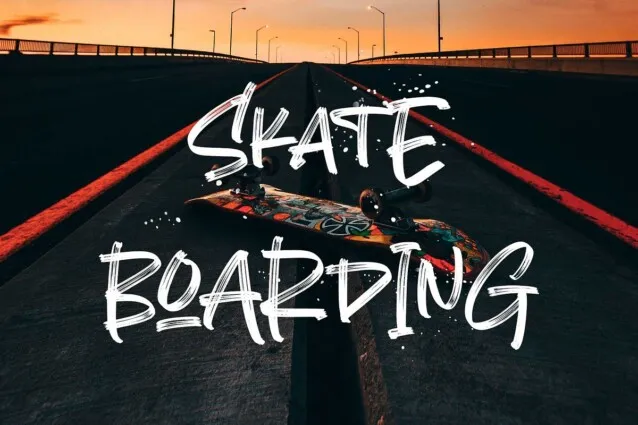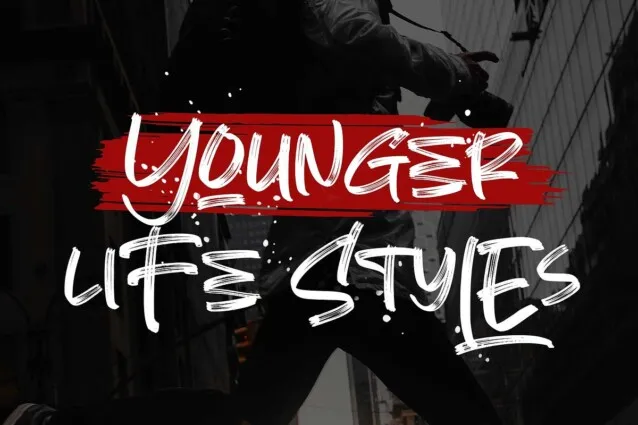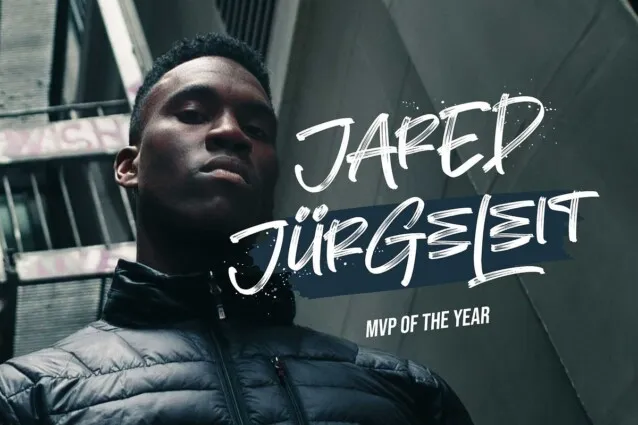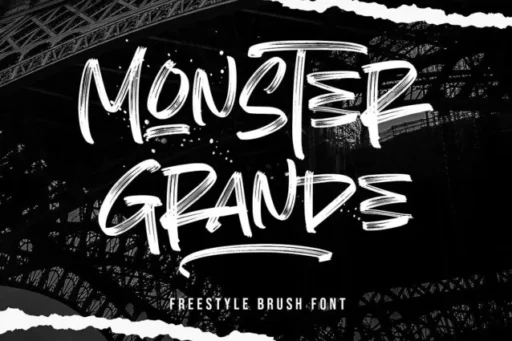
Monster Grande Font
Monster Grande looks like it was drawn by hand and has a dry marker feel. The Arterfak Project made it, and its big, all-caps letters give it an urban, lively feel. It goes with themes like street style, pop culture, sports, and the underground. Monster Grande gives your text a handwritten look with its many ligatures and stylistic alternatives. You can use it to make your ideas look more modern and in style.
Where Monster Grande Font works best
Monster Grande Font is built for size: event posters, hero headlines and billboard-style layouts.
High contrast display type like Monster Grande Font reads instantly in thumbnails and motion graphics.
What is Monster Grande Font good for?